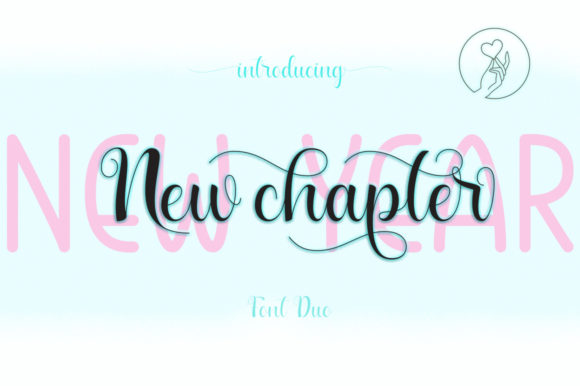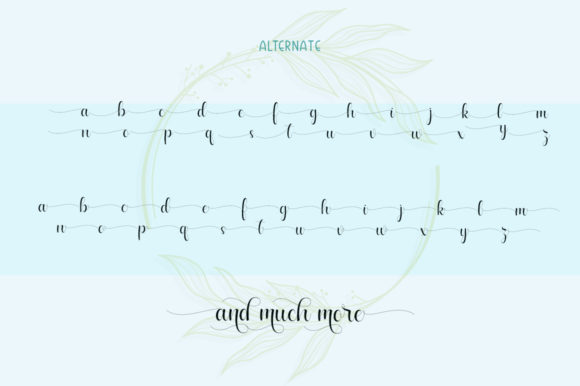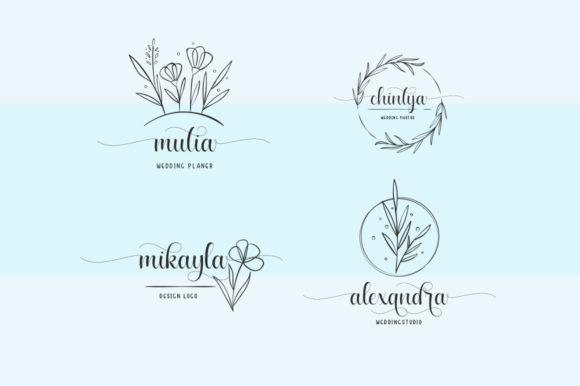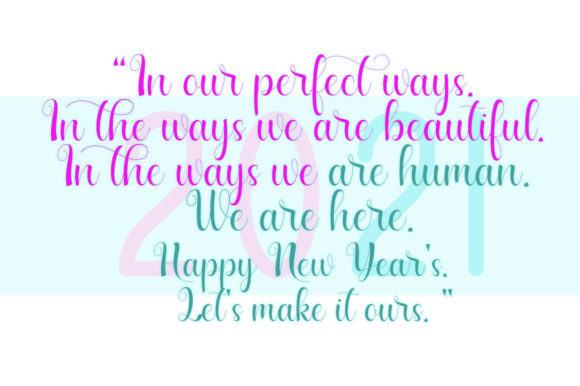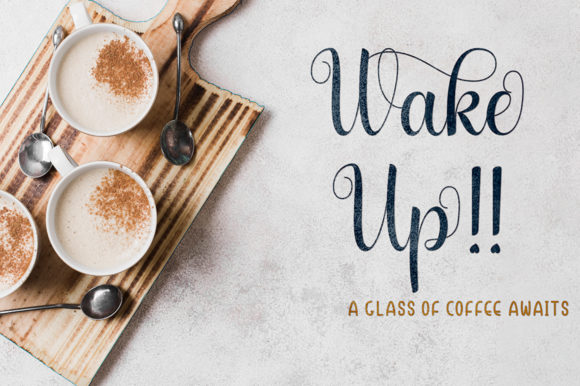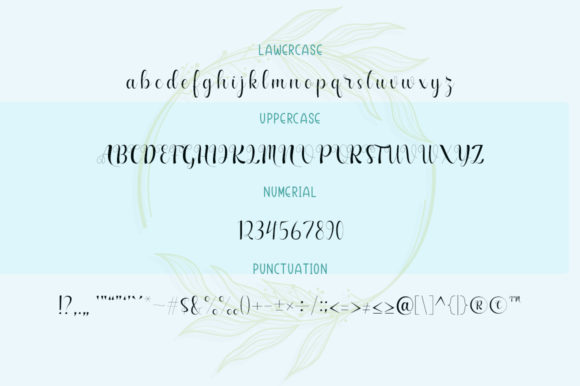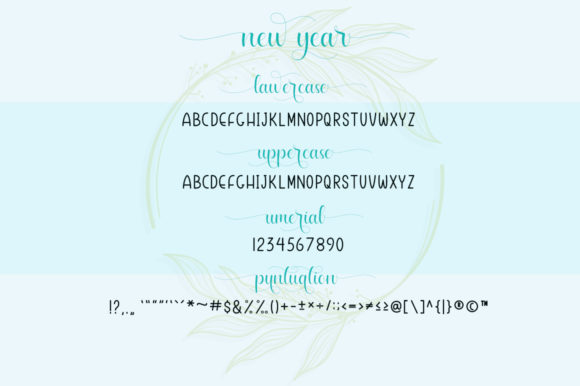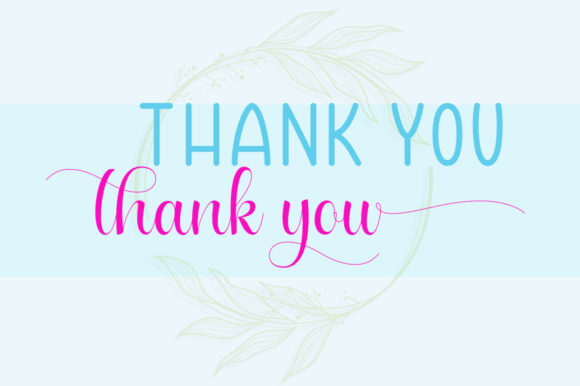
New Year New Chapter Font
About New Year New Chapter Font
Introducing “New Year New Chapter,” a one-of-a-kind handwritten font that brings a touch of charm and uniqueness to your DIY projects. With its gorgeous and distinctive style, this font will breathe life into your creations and add a personal and heartfelt touch.
New Year New Chapter features beautifully crafted letterforms that capture the essence of hand-drawn artistry. Its organic curves and playful strokes create a sense of warmth and authenticity, making it perfect for projects that require a personal and handmade feel.
Whether you’re working on scrapbooking, journaling, card-making, or any other DIY project, New Year New Chapter will be your go-to font. It effortlessly transforms plain text into a visual delight, adding personality and character to your designs. With its wide range of glyphs and swashes, you have the freedom to experiment and create truly unique and customized pieces.
The PUA encoding of New Year New Chapter makes it easy to access all the extra glyphs and swashes. You can effortlessly enhance your designs by adding flourishes, ligatures, and decorative elements, elevating them to new levels of creativity. The versatility of this font allows you to adapt it to different design styles and themes, giving you endless possibilities for expression.
Embrace the new year with a fresh start and let New Year New Chapter be the voice of your creative endeavors. Its unique handwritten style will infuse your projects with a sense of joy, positivity, and excitement. Whether you’re creating motivational quotes, inspirational artwork, or simply documenting your journey, this font will help you convey your message in a visually captivating way.
Let New Year New Chapter be the catalyst for your creativity and make each project a celebration of new beginnings. Its gorgeous and unique design will leave a lasting impression and make your DIY creations shine. Embrace the artistry of handwritten fonts and let your imagination run wild as you embark on a new chapter of creative expression.